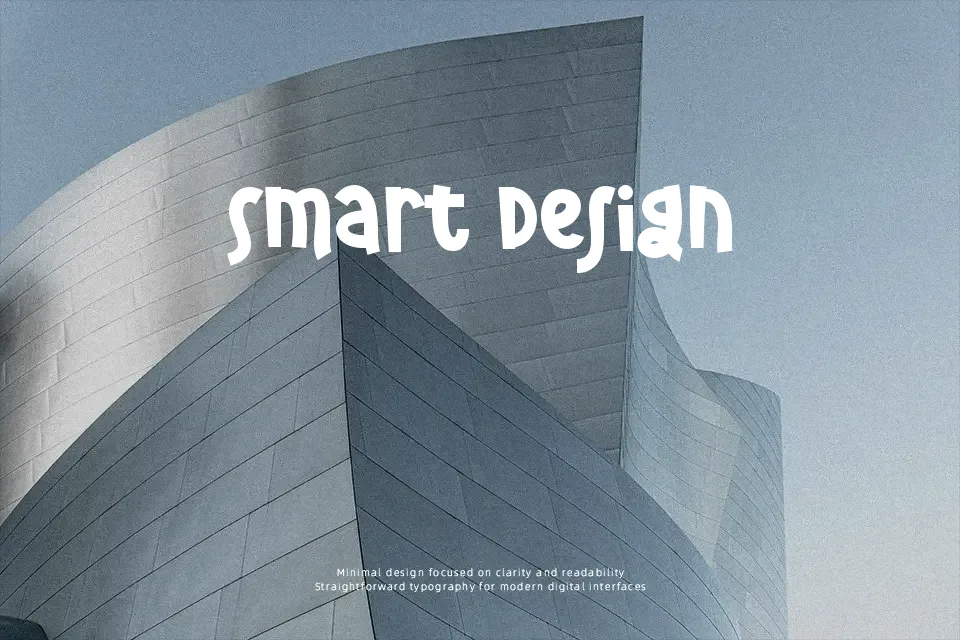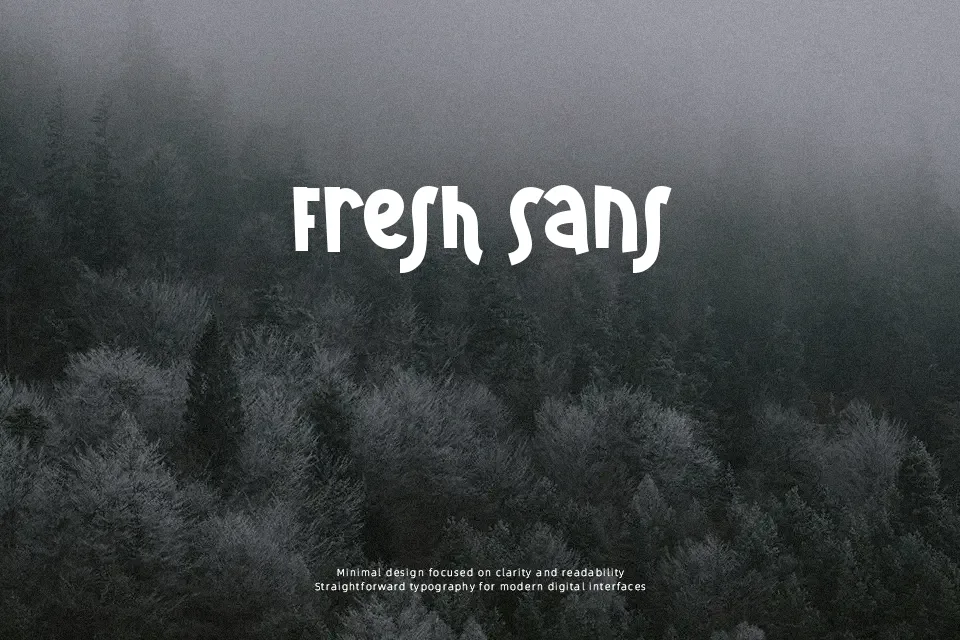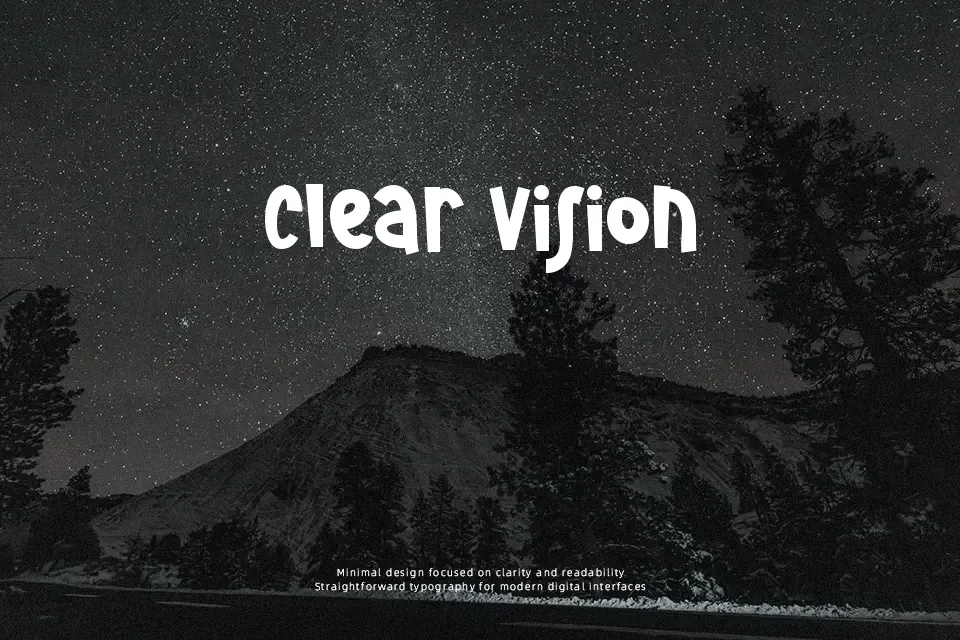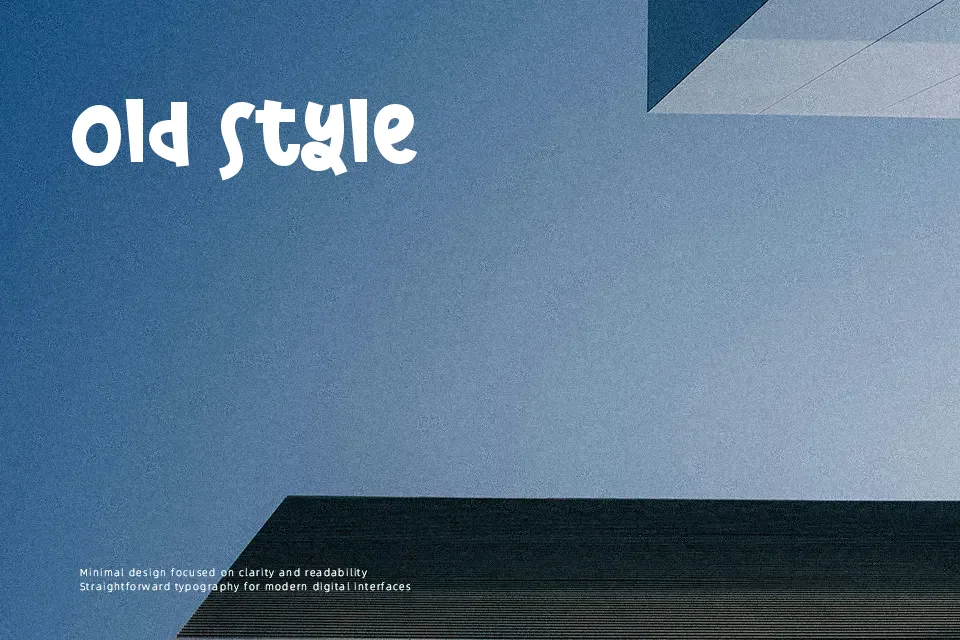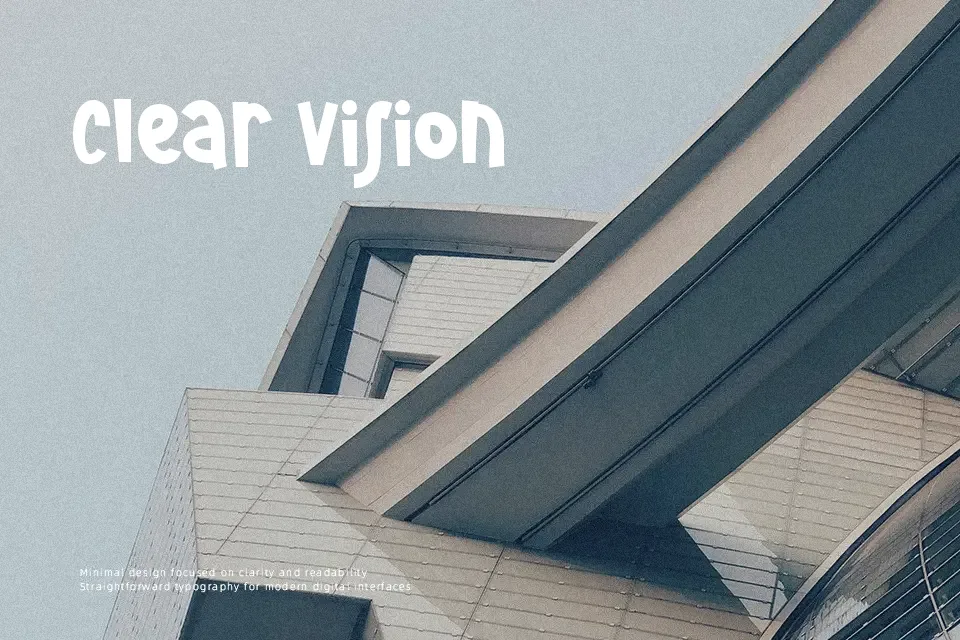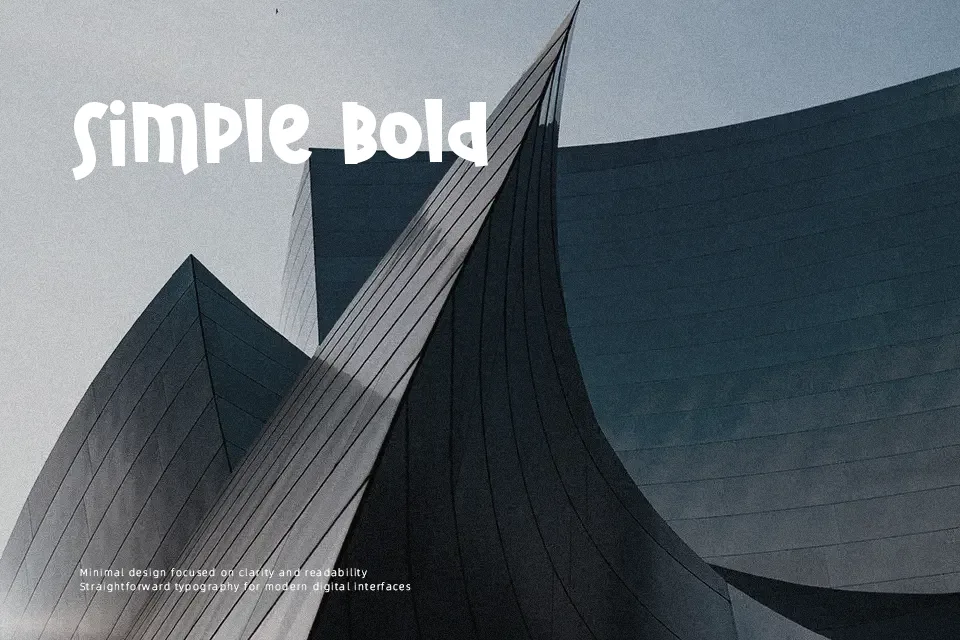
Tropic Sunset Font
Tropic Sunset Font exhibits heavy stroke weight paired with gently rounded terminals to establish an informal visual rhythm. Generous glyph widths and compact tracking produce dense headline blocks that capture viewer focus across retail packaging, children’s book covers, and summer event banners. While the consistent forms sustain dependable readability in brief display settings, internal counters begin to crowd when rendered below medium display scales. The design functions most effectively when applied to bold titling where exaggerated stroke weights maintain distinct separation, making the typeface impractical for running editorial paragraphs or data-heavy editorial spreads.
Best For: summer event banners,children’s book covers,cartoon product packaging,casual apparel graphics
Not Ideal For: long paragraph text,dense editorial layouts,technical documentation,small interface labels
Perfect for advertising, headline, and kids, with a bold and cartoon style.